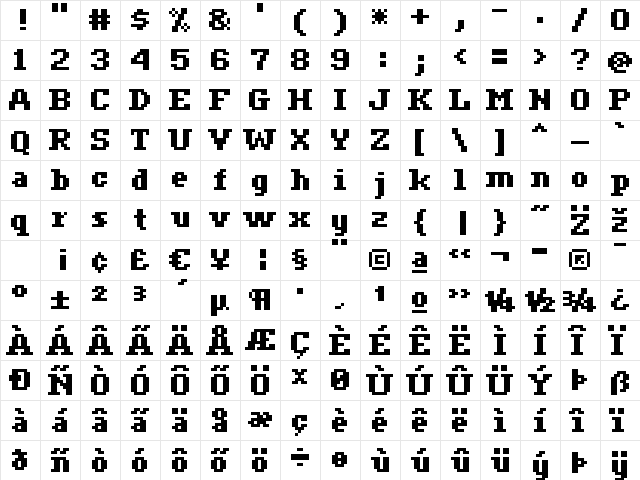
ceriph 07_65 Regular
Design Context for ceriph 07_65 Typeface
ceriph 07_65 takes a measured approach to typography — its balanced proportions and neutral character make it a reliable workhorse for both digital and print work.